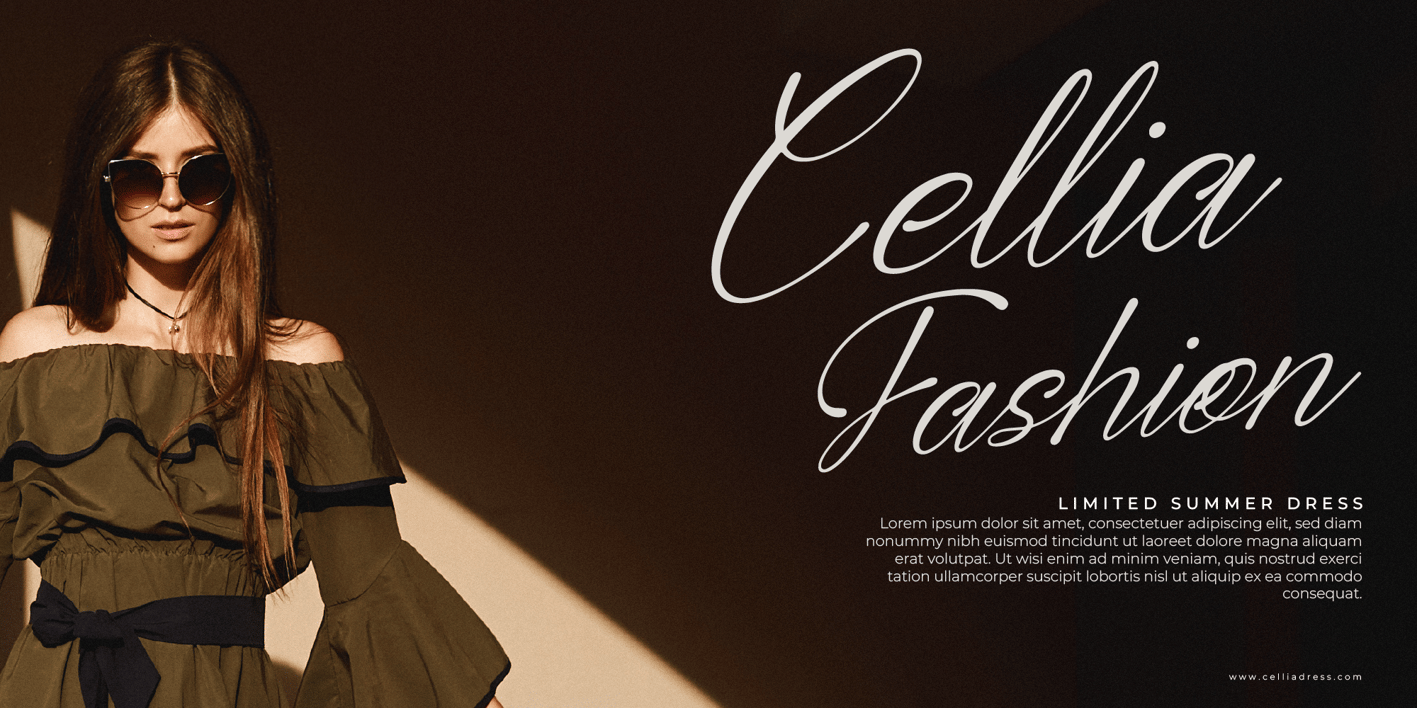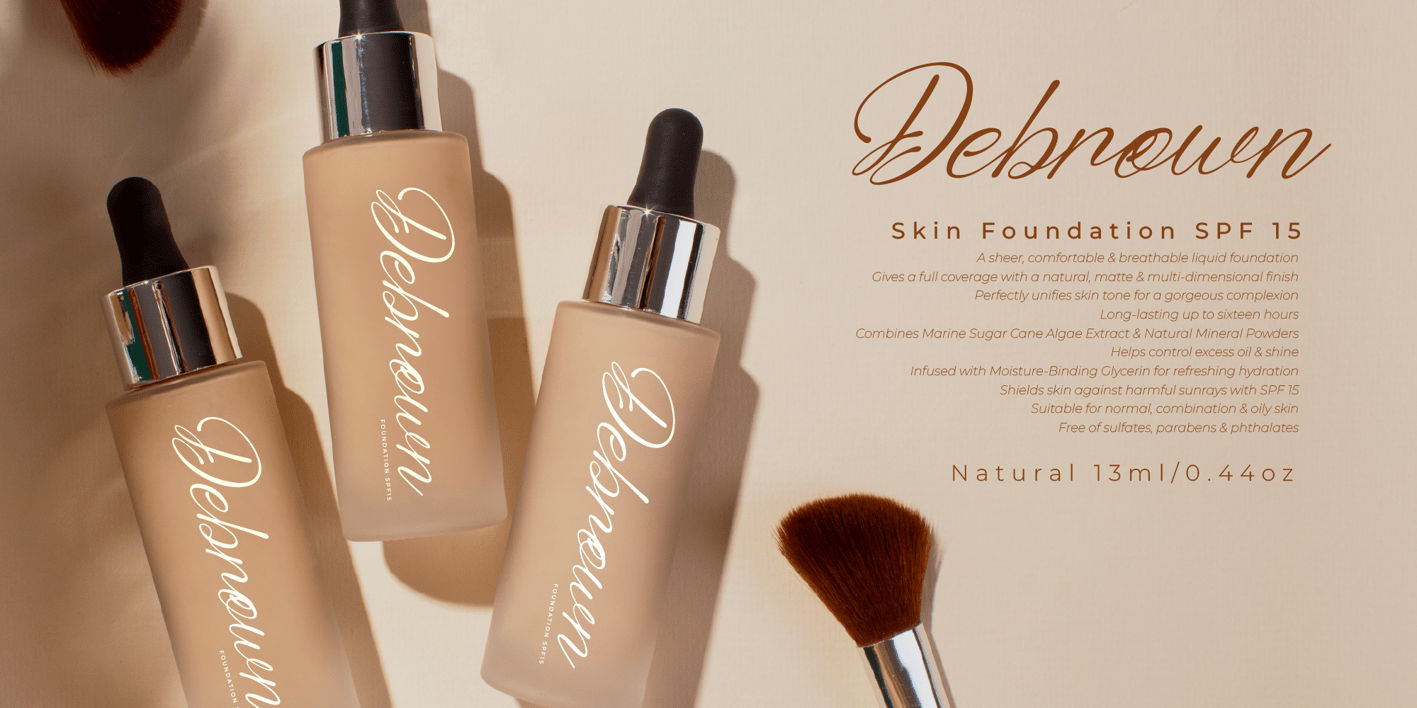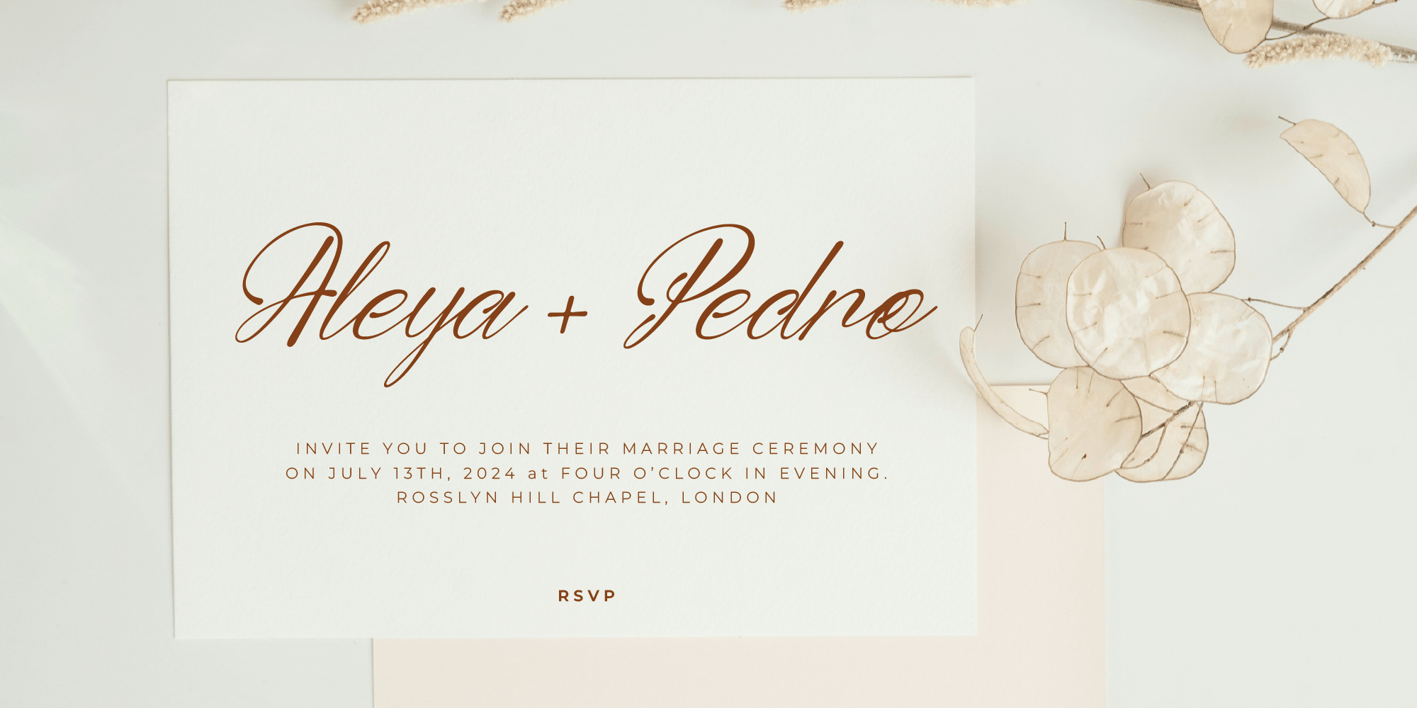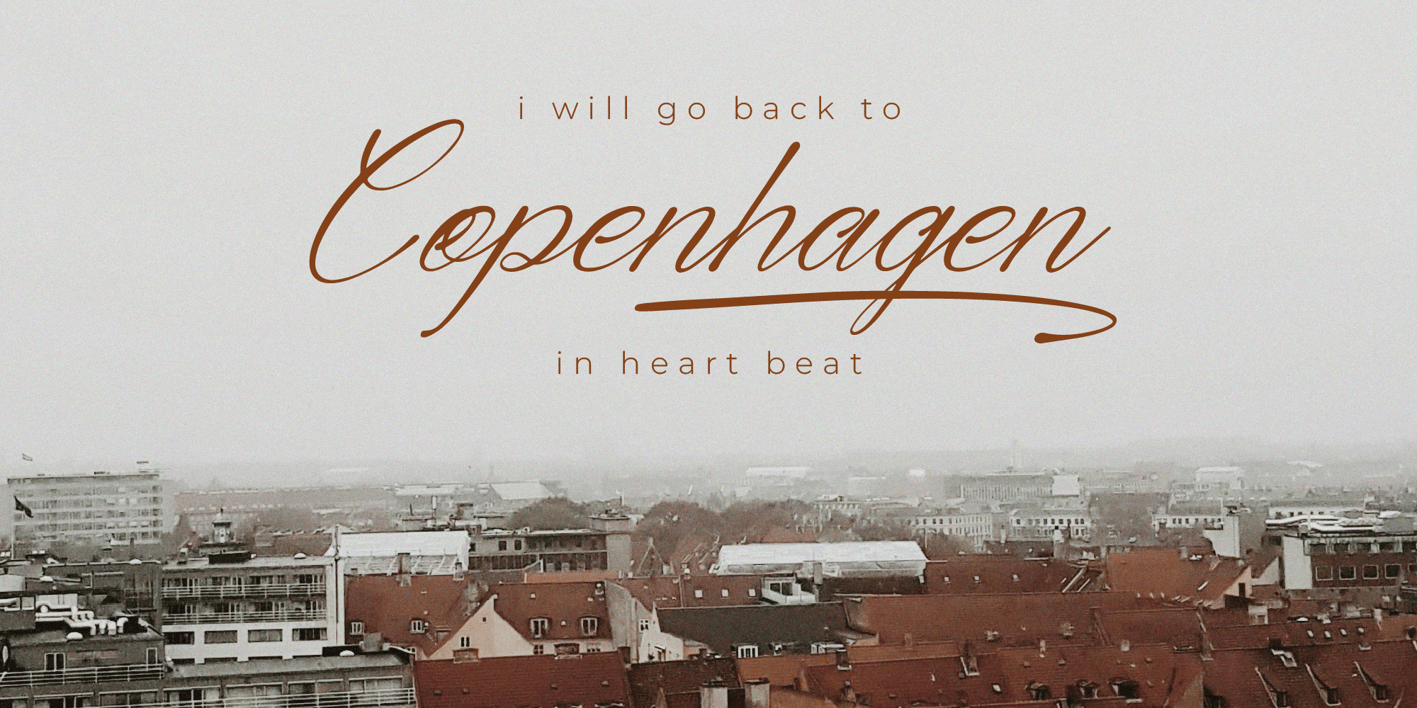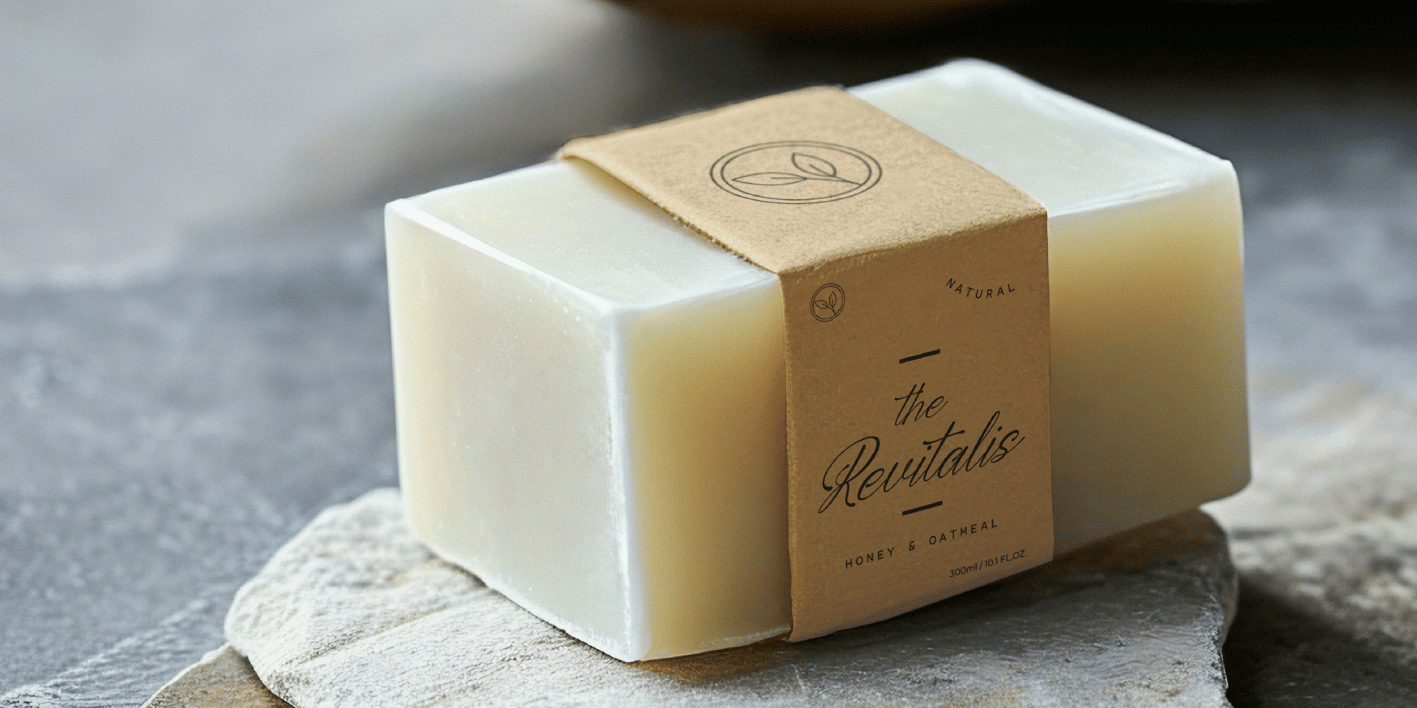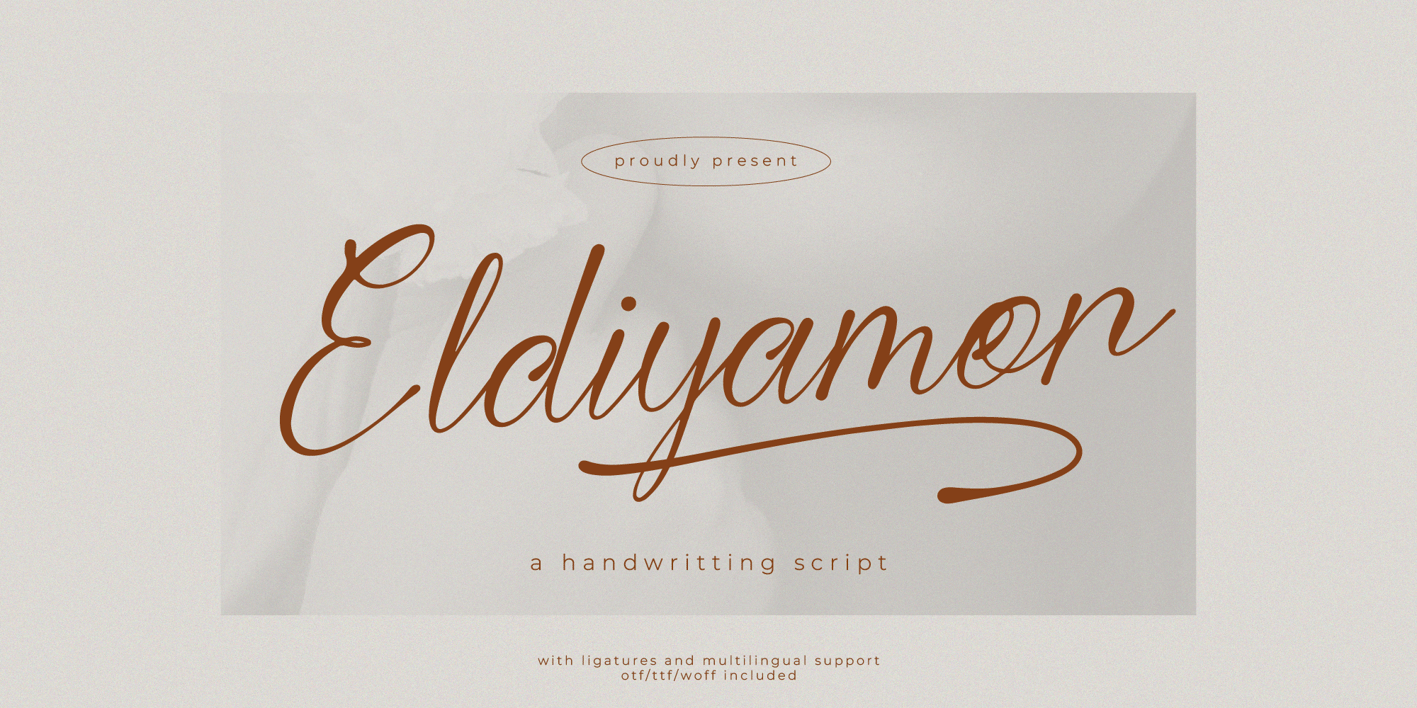
Eldiyamor Font
Eldiyamor | Handwritting Script, from Gracetypestudio, suitable for any projects such as: logos, branding projects, homeware designs, product packaging, mugs, quotes, posters, shopping bags, t-shirts, book covers, name card, invitation cards, greeting cards, label, photography, watermark, special events, and all your other lovely projects that need a Handwritting script taste.